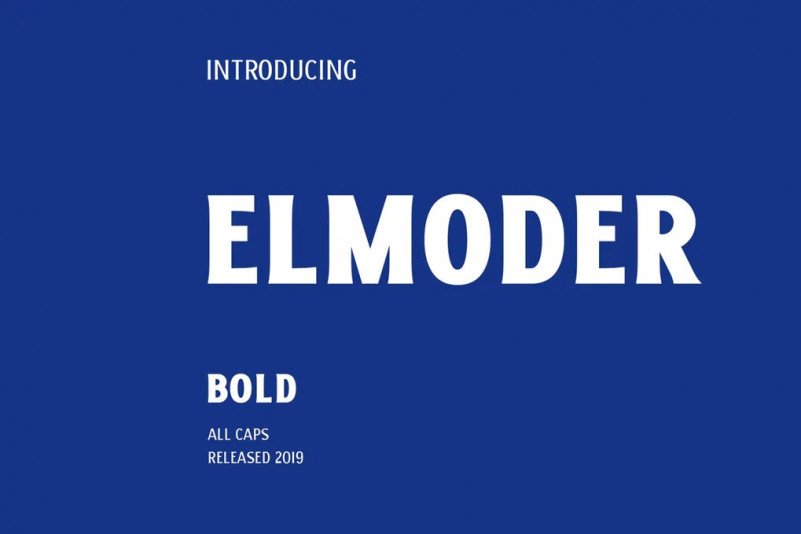
Elmoder Bold Font
Elmoder a typeface ,very suitable as to make a design choice for books, magazines, packaging, branding , signage and more other creative project.